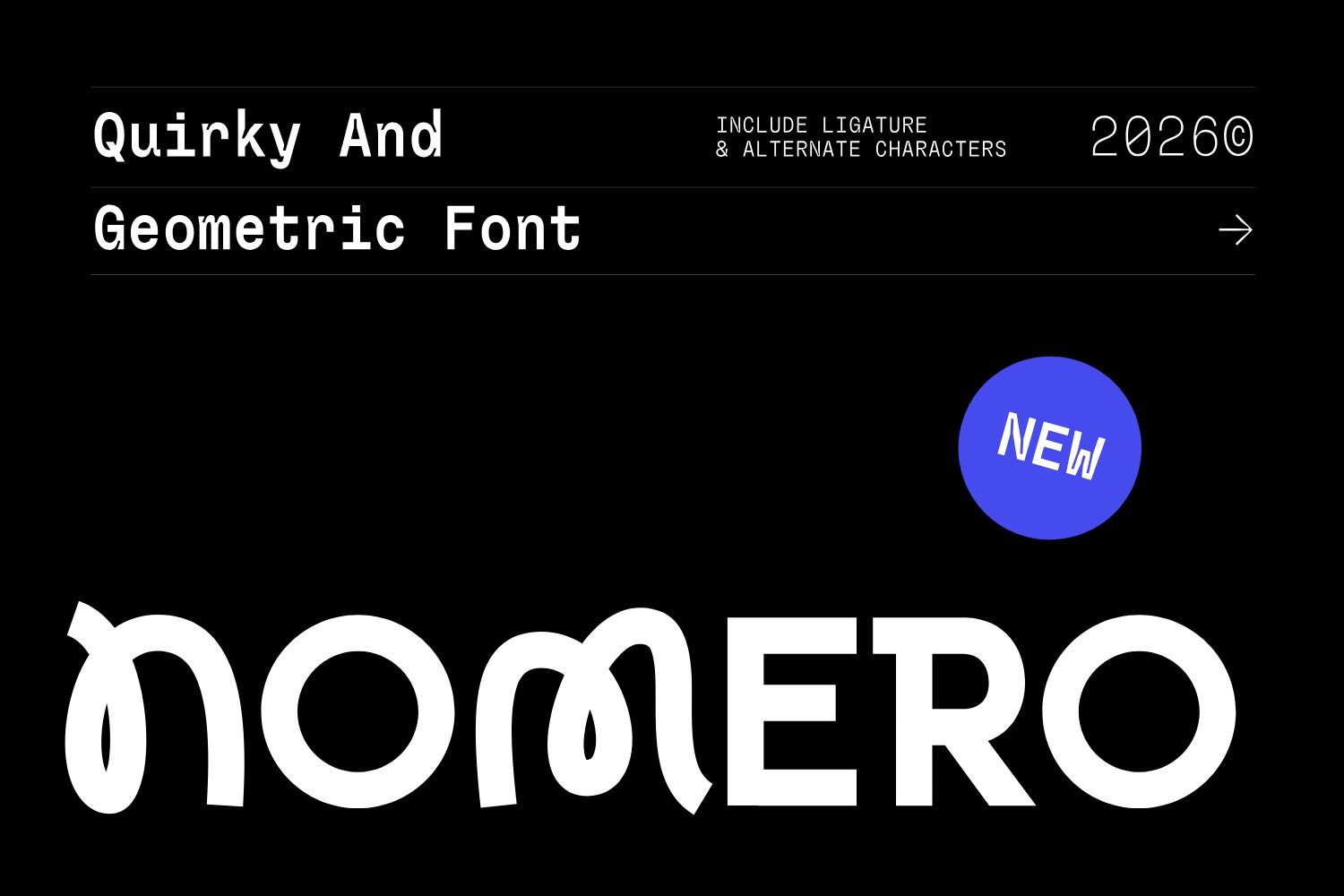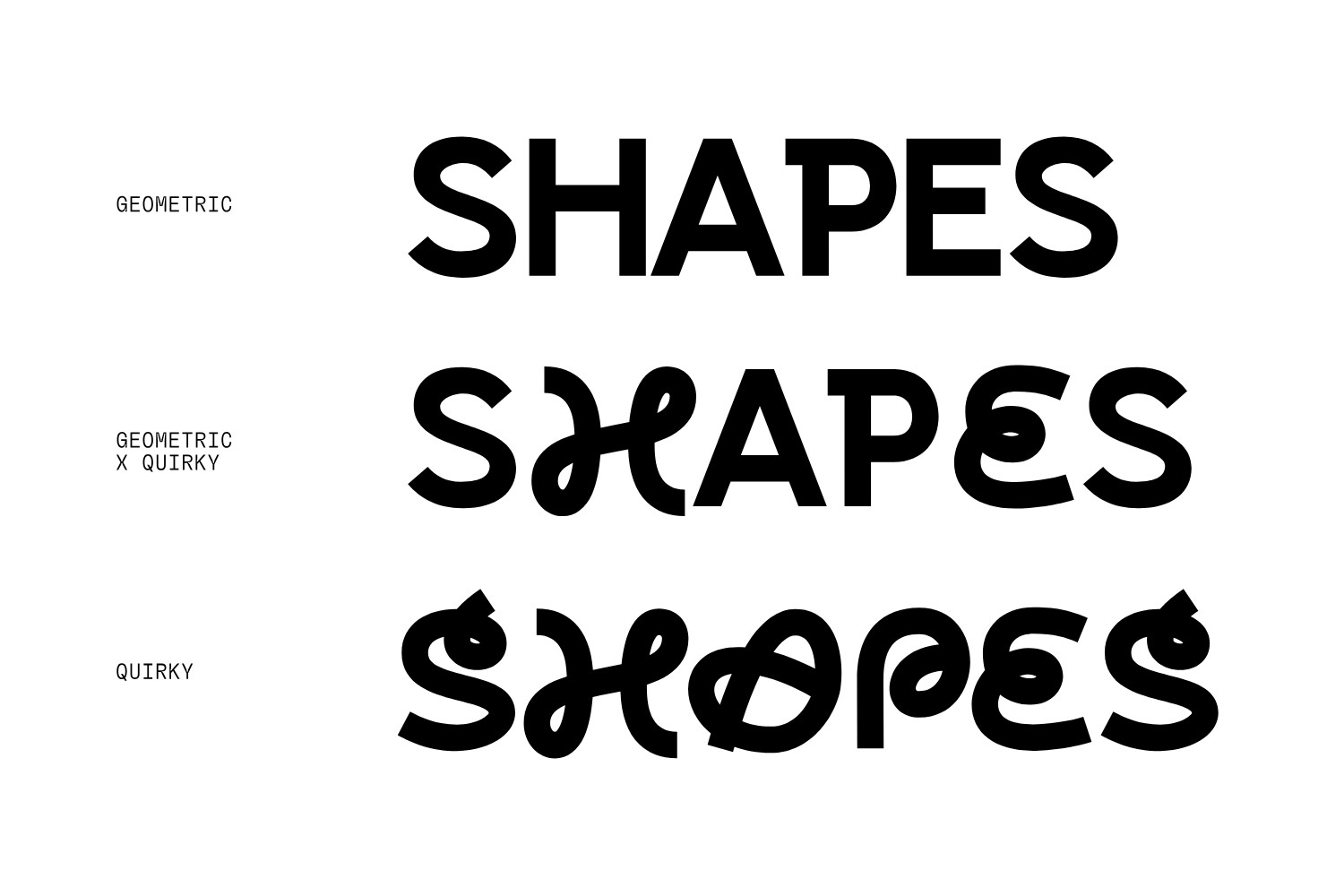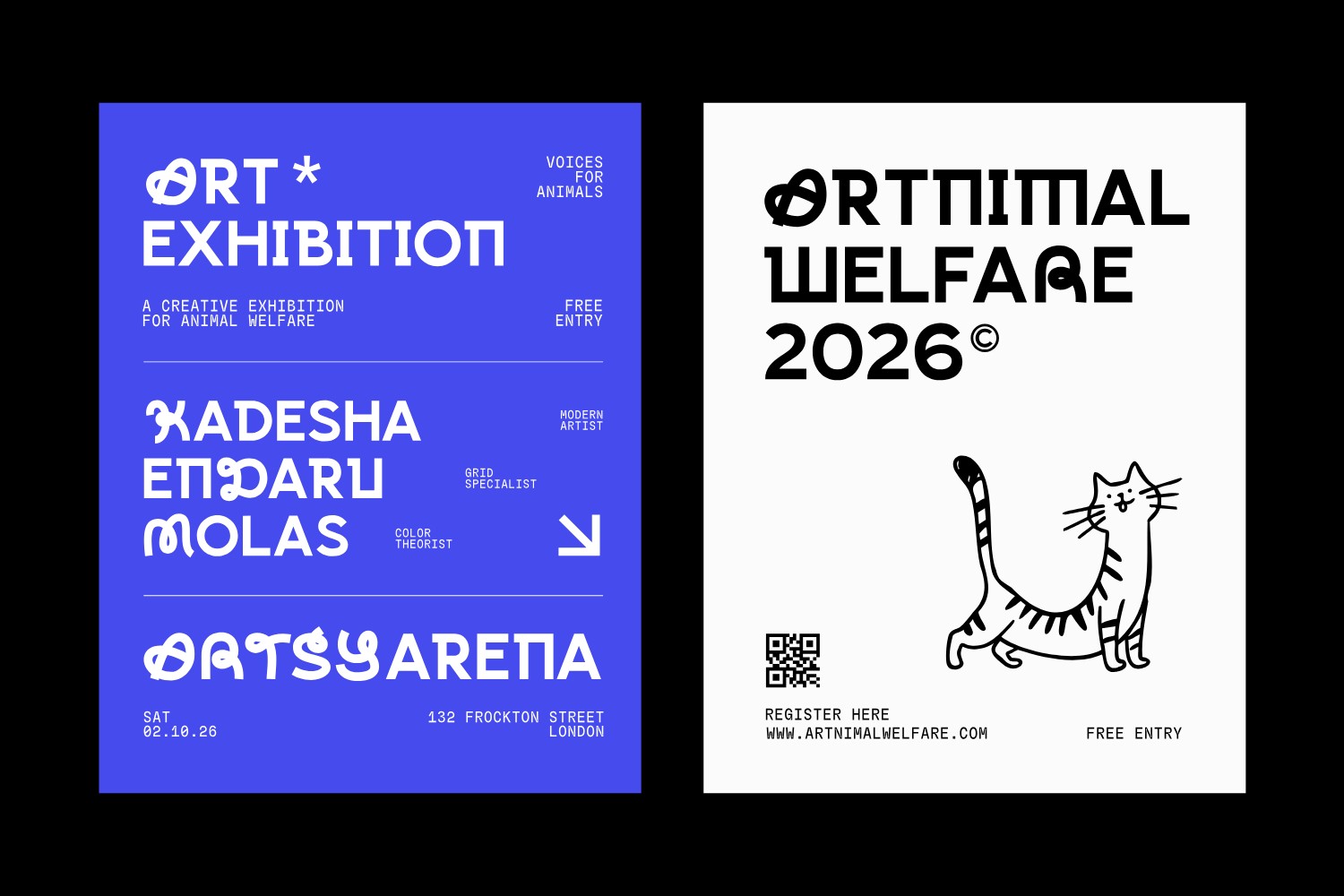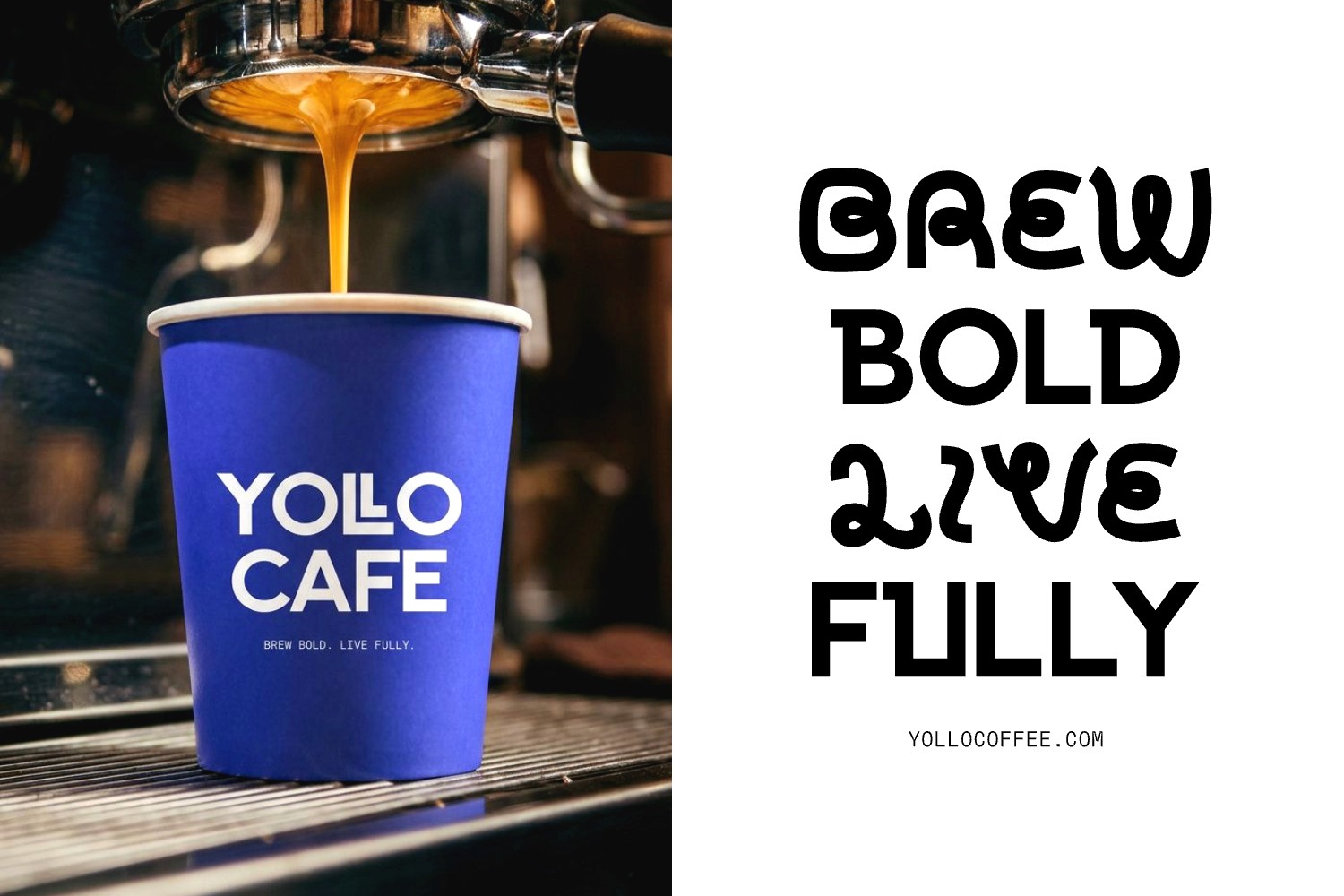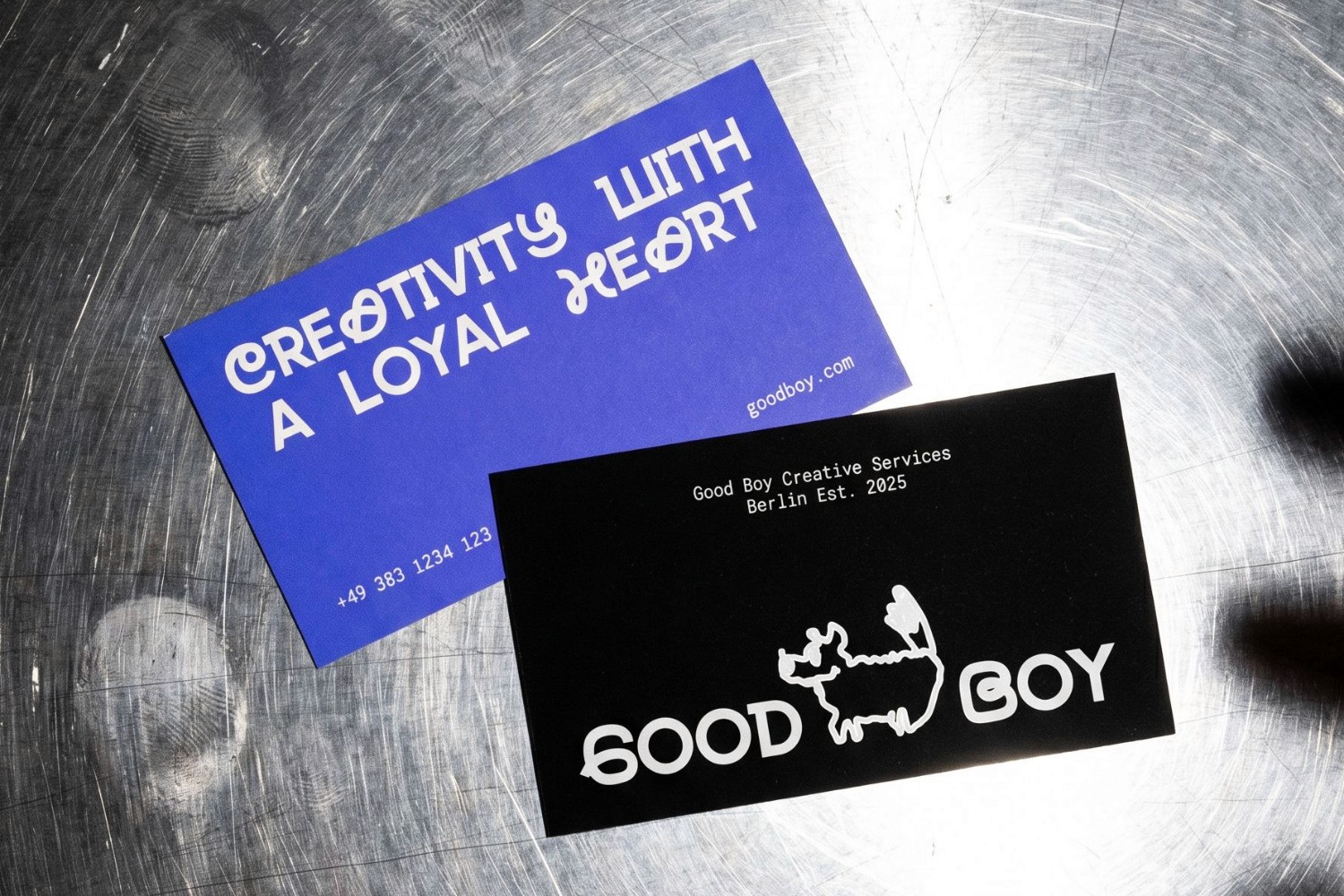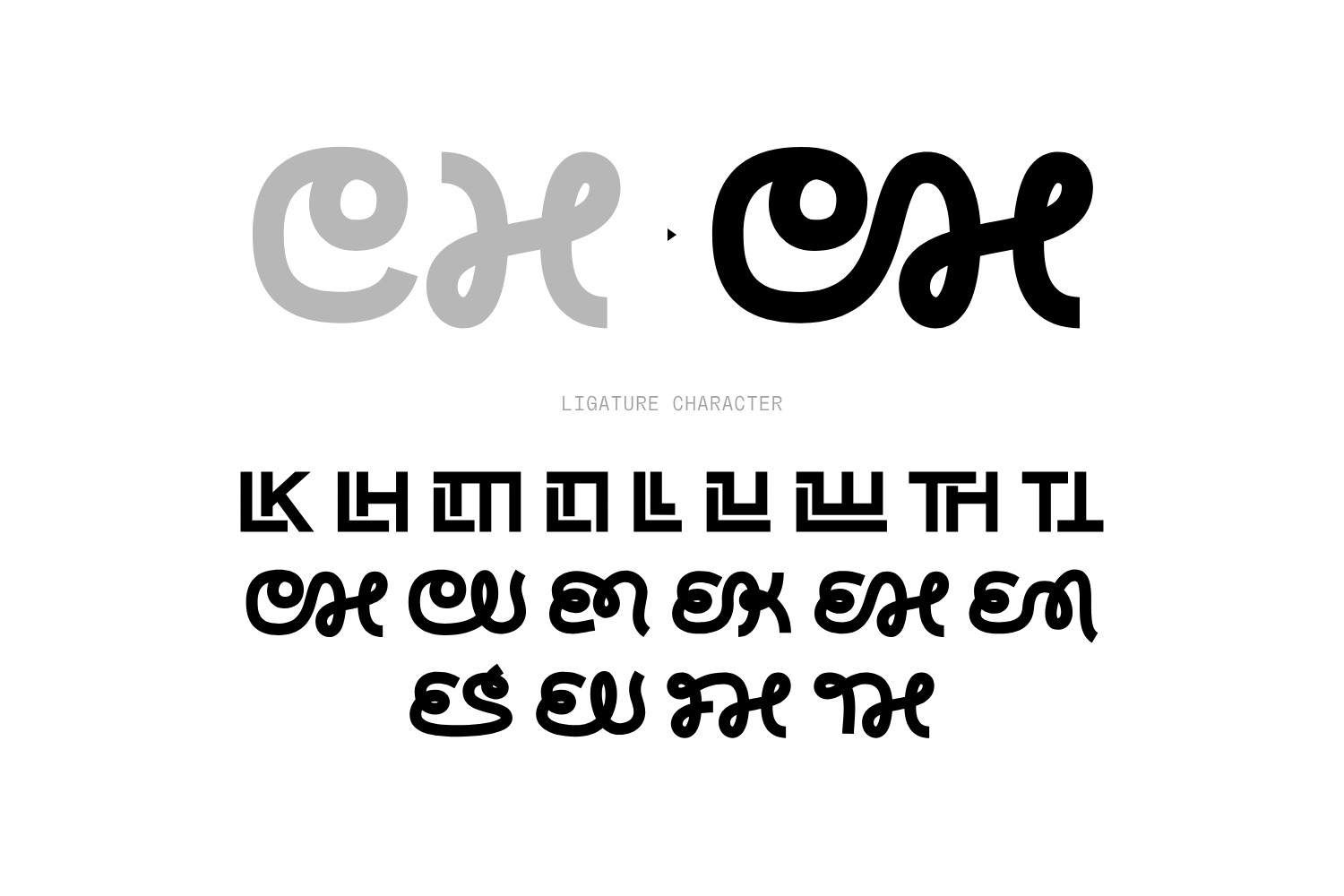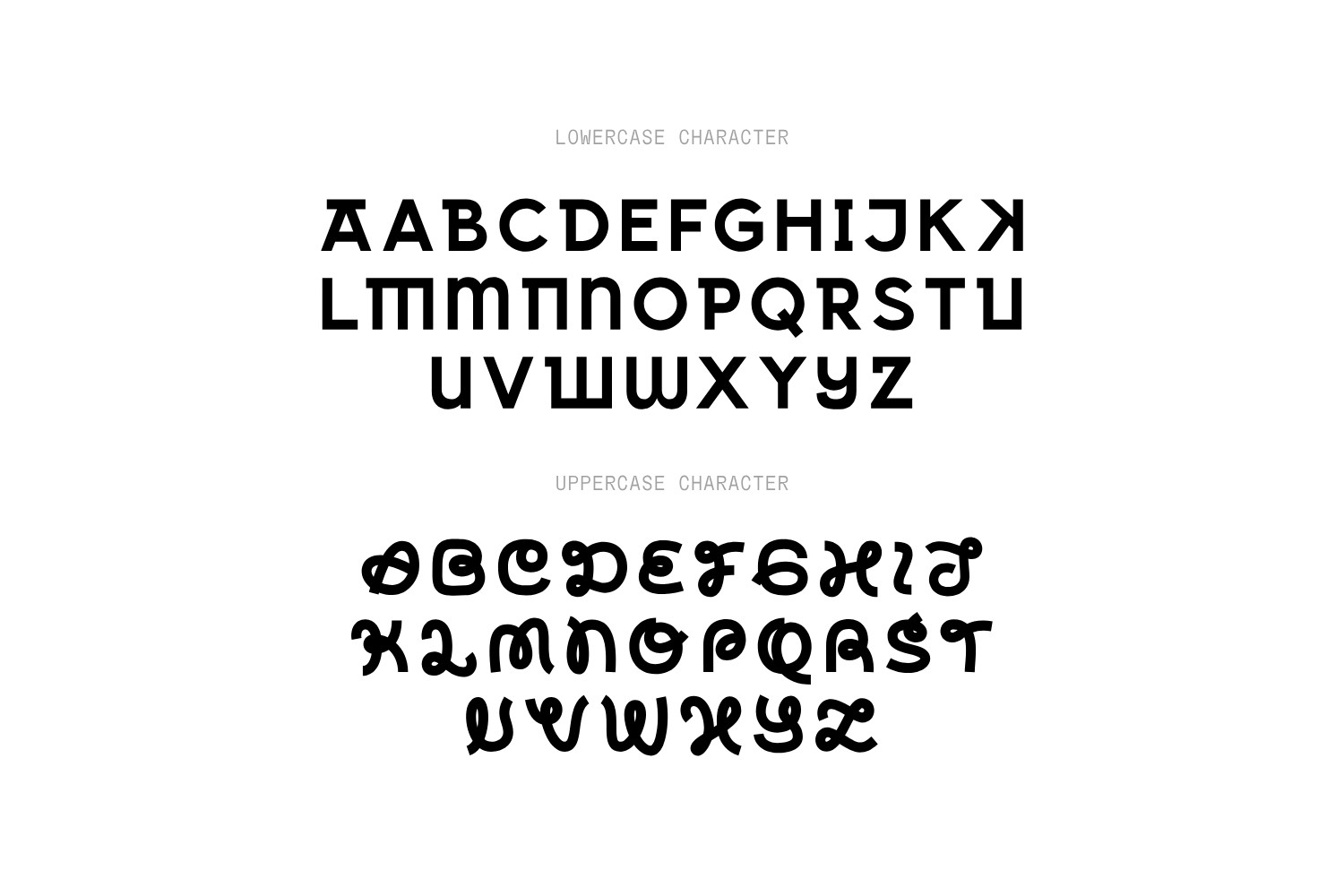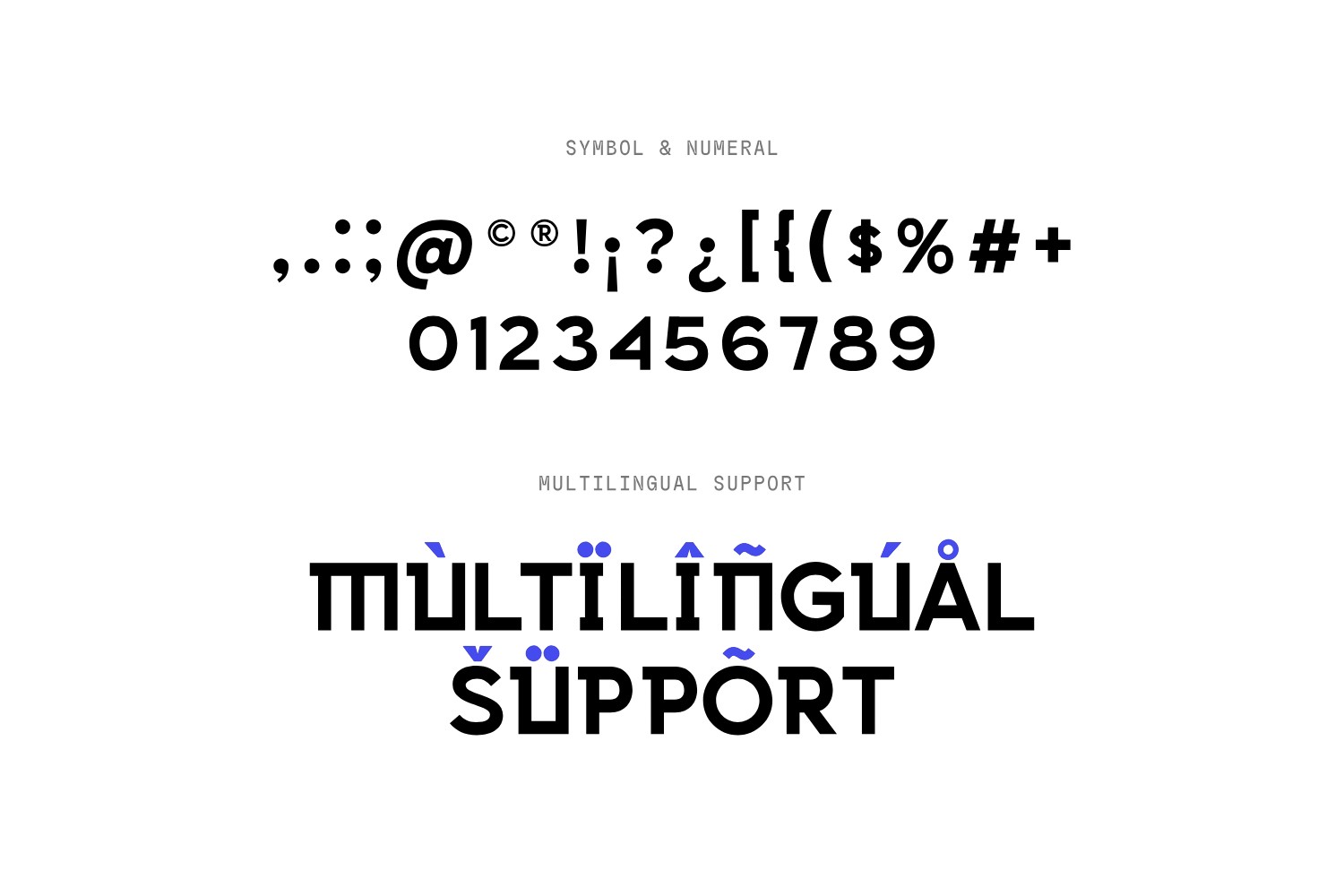
Nomero
Nomero is a quirky geometric display font designed to blend playful personality with modern structure. Perfect for posters, branding, logos, packaging, editorial layouts, social media graphics, and experimental design projects. With ligatures, alternate characters, symbols, numerals, and multilingual support, Nomero adds distinctive charm and creative energy to every design.